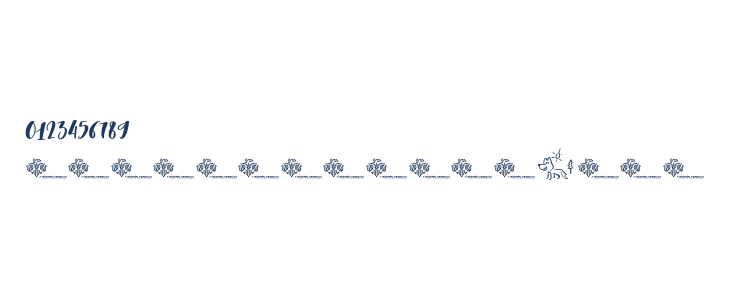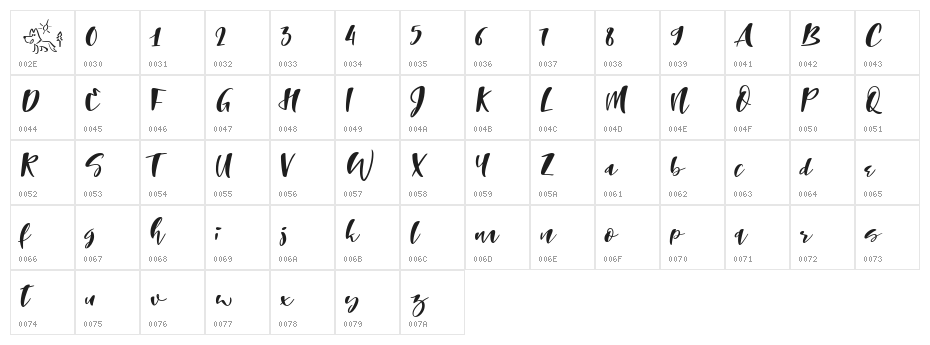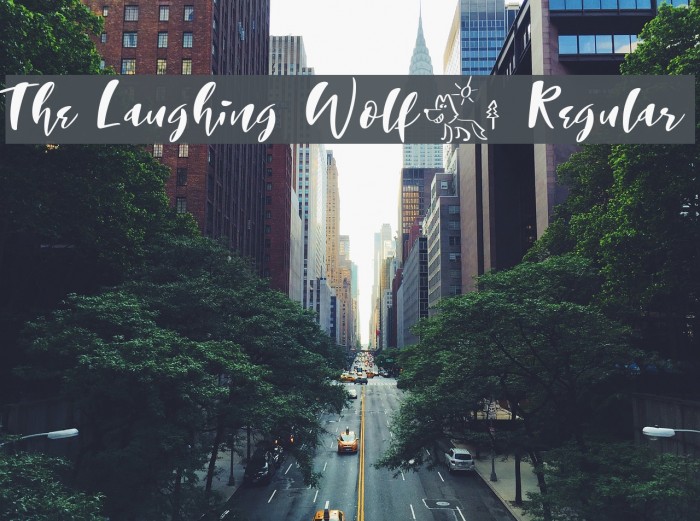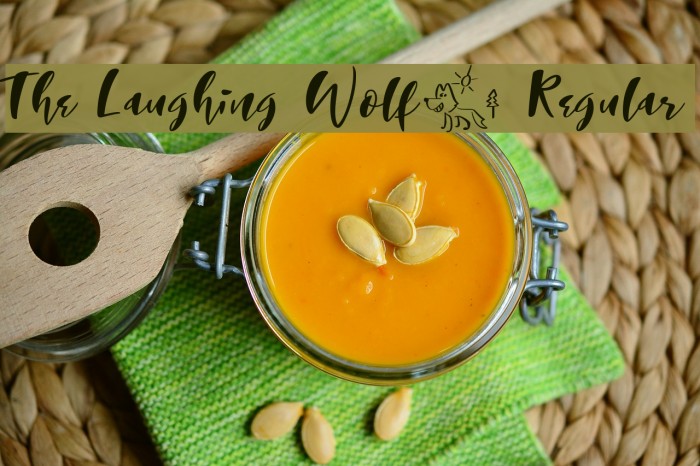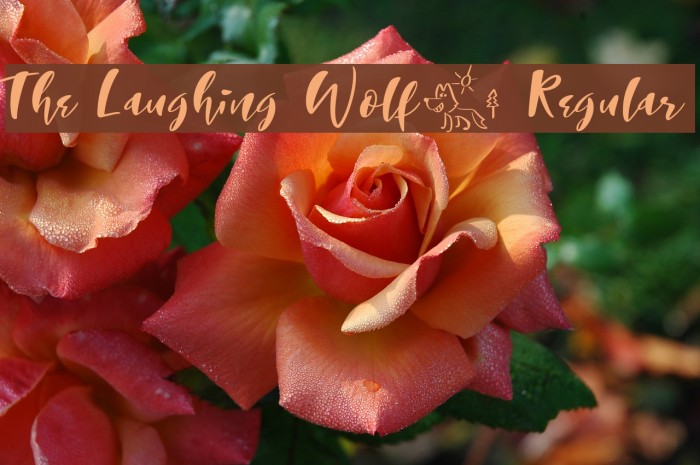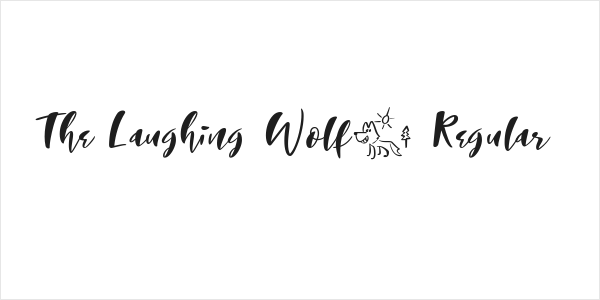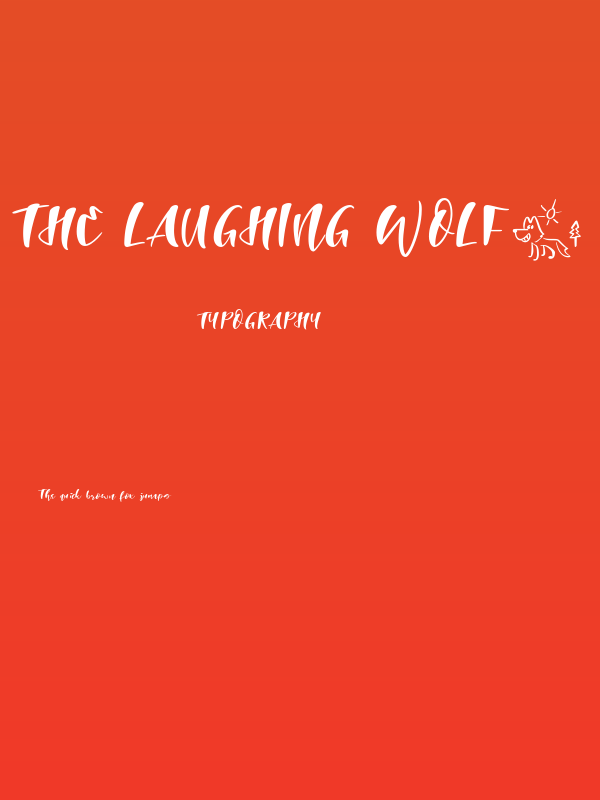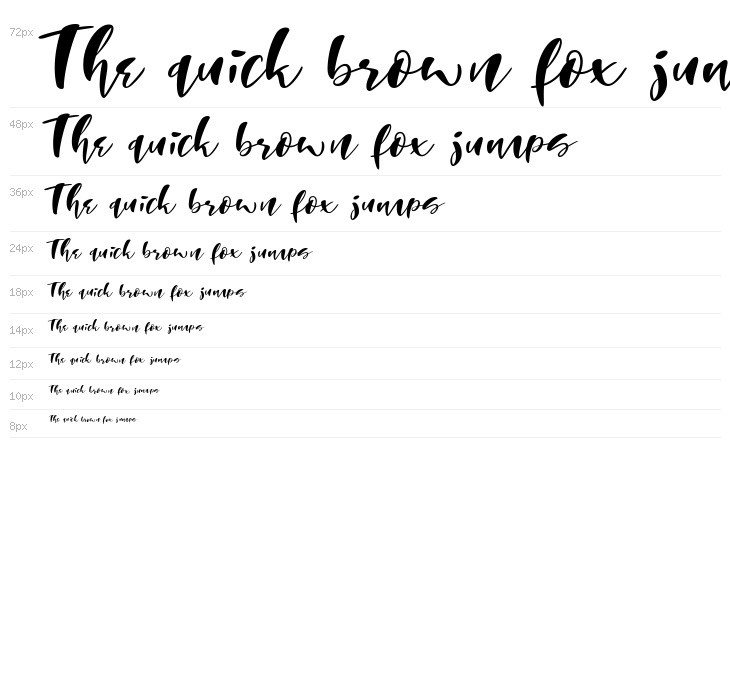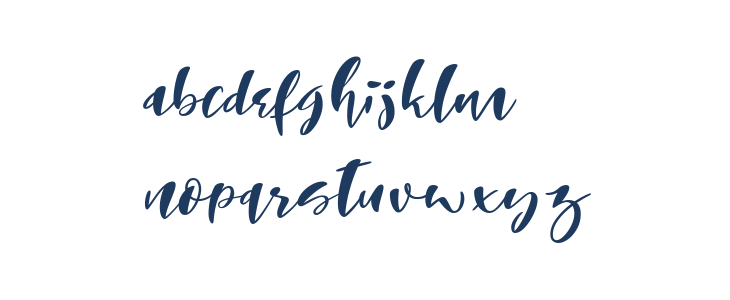
The Laughing Wolf. Regular Font
The Laughing Wolf. Regular Description
This font exudes a playful and energetic vibe, characterized by its bold, brush-like strokes that convey a sense of movement and fluidity. The letters are crafted with a calligraphic flair, featuring smooth curves and varying stroke widths that add a dynamic quality to the text. The uppercase letters are bold and expressive, while the lowercase letters maintain a consistent flow, enhancing readability. The numerals are equally bold, matching the overall style of the alphabet. This font is ideal for projects that require a lively and informal touch, making it perfect for creative designs, invitations, and branding that seeks to capture attention with a sense of fun and spontaneity.
| Proposed Projects | Ideal for creative designs, invitations, branding, and any project needing a lively, informal touch. |